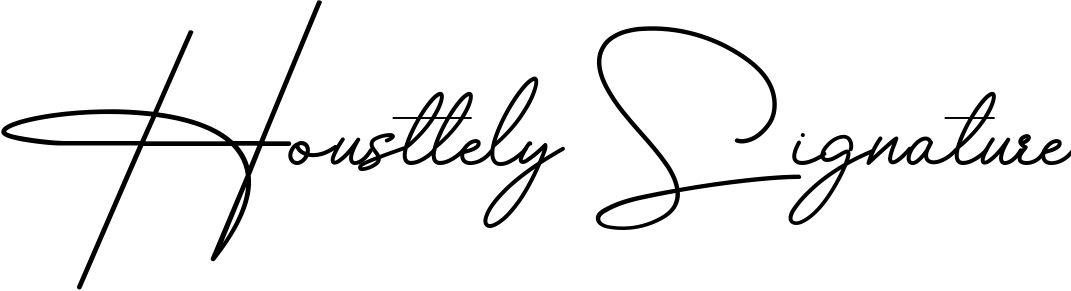
Housttely Signature
Delicate flowing signature script with elegant looping capitals
Housttely Signature is a delicate, flowing script from Halymunt Studio, styled after a handwritten personal signature with elegant, looping capitals and thin connecting strokes.
That signature-style look makes it a natural fit for logos, wedding invitations, and any branding that wants a personal, handwritten touch.
Note that the character set is built mainly for names and short text - some numeral and symbol slots aren't fully mapped - so it's best used for titles and signatures rather than full paragraphs.